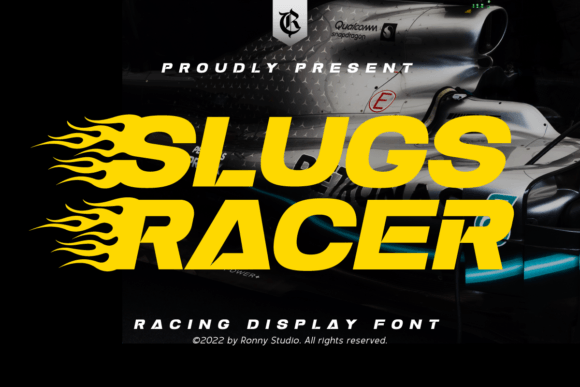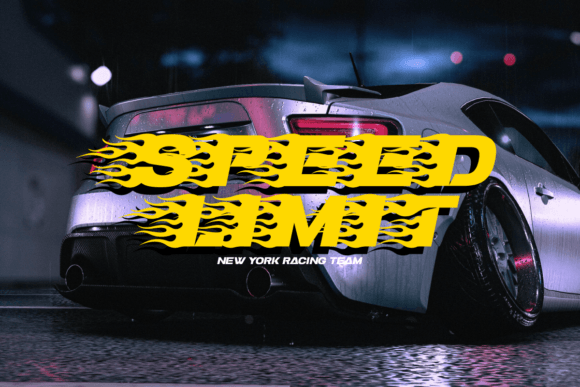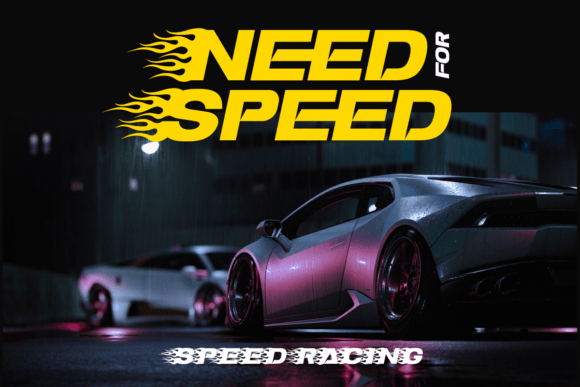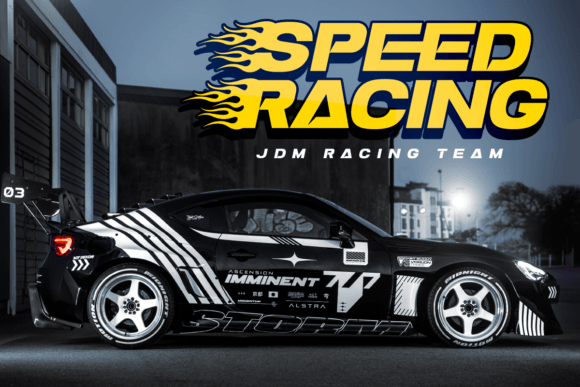
Slugs Racer Font
About the Slugs Racer Font
The wait is over! The incredible Slugs Racer Font is now available for your design toolkit. Slugs Racer is an all-caps racing display font that has a very thick body but maintains high contrast. This font looks very modern when paired with a contrasting design color. This font impresses and features a clean and elegant font, professionally shaped, and as a result, it will easily match any creation that calls for a different touch. Add it confidently to your projects, and you’ll love the results. This typeface is perfect for elegant logos, branding, promotions, book covers, magazine layouts, or simply as a stylish text overlay onto any background image.
Slugs Racer Font Usage Examples
Slugs Racer Font Example